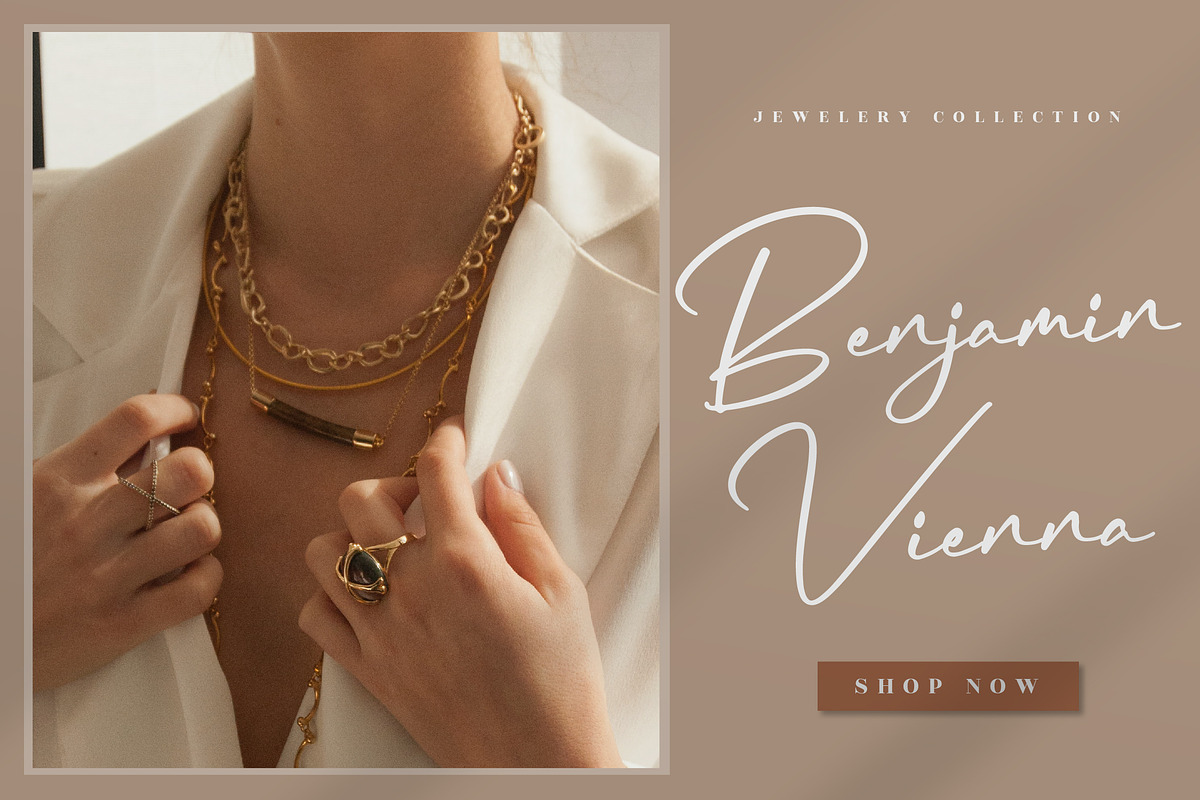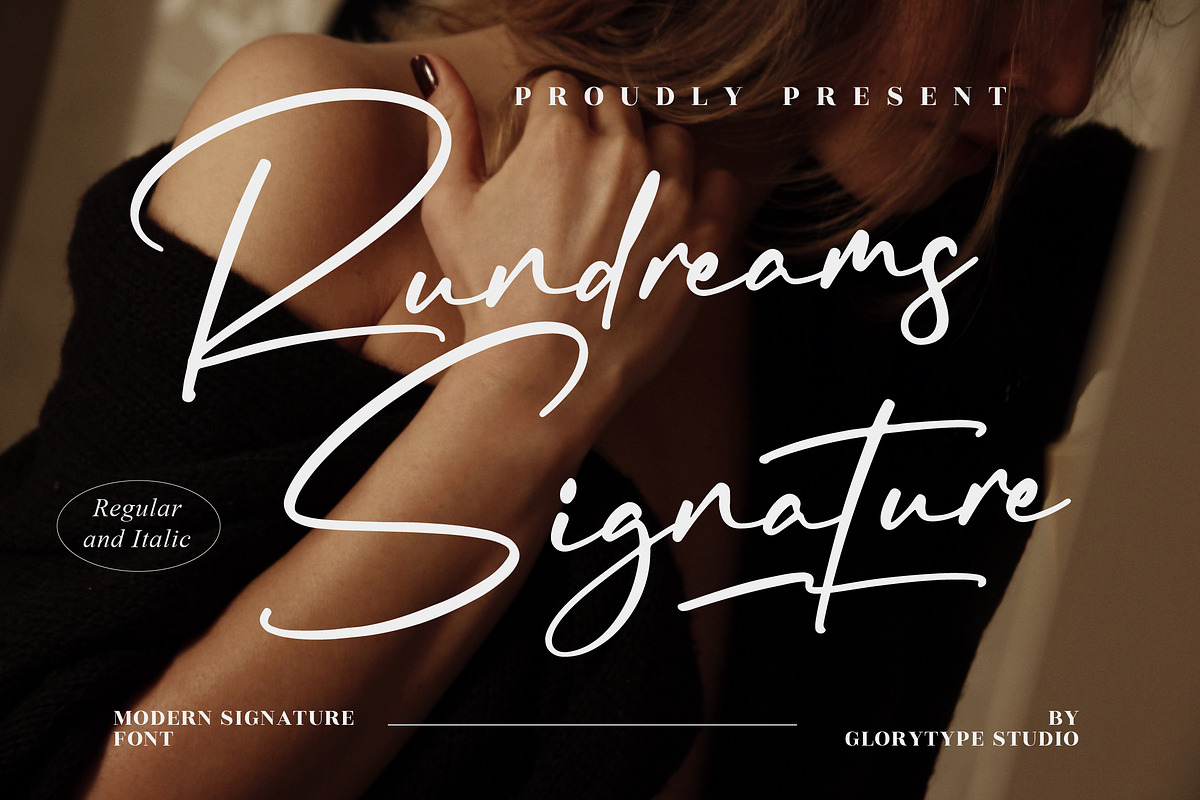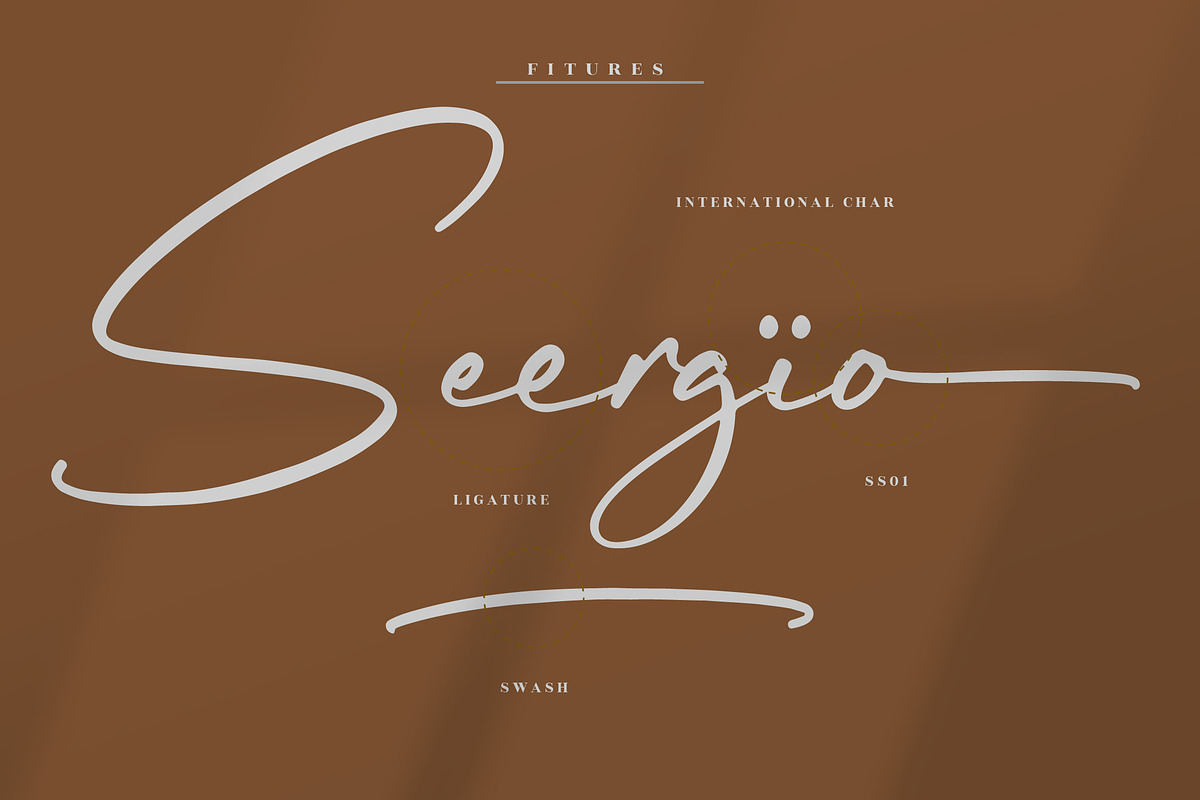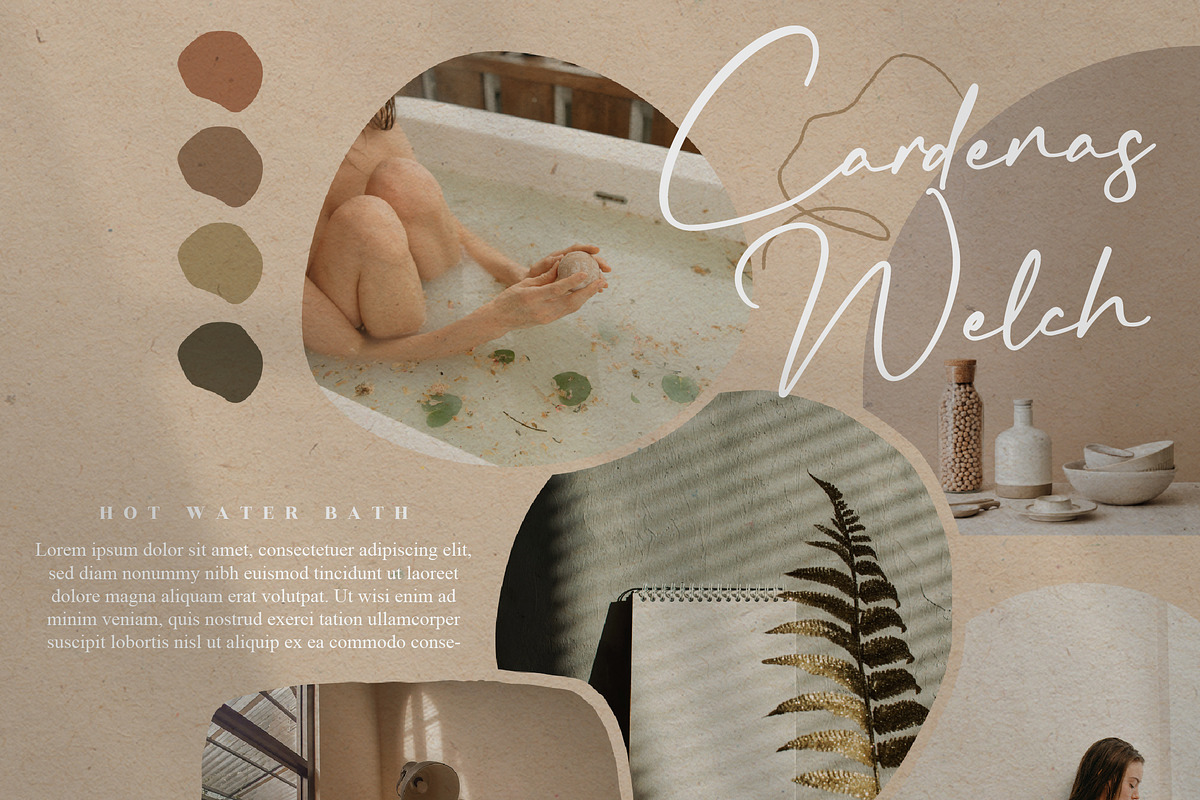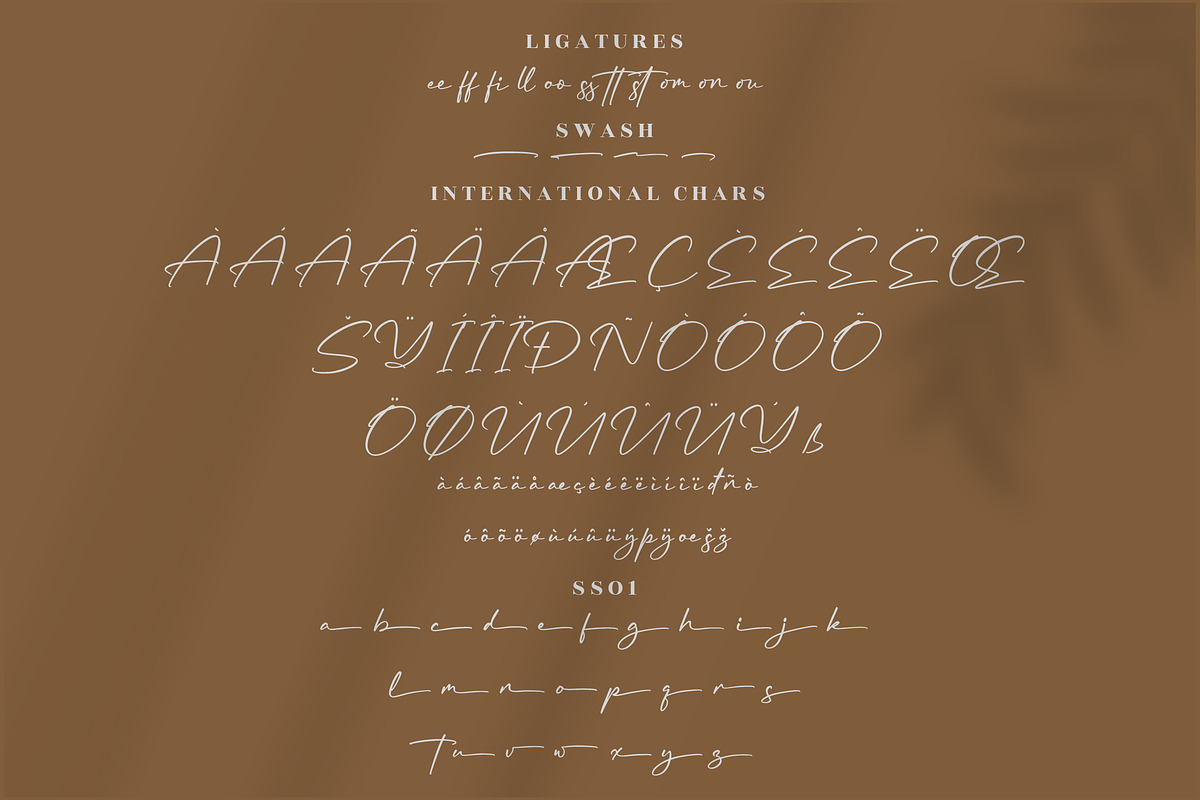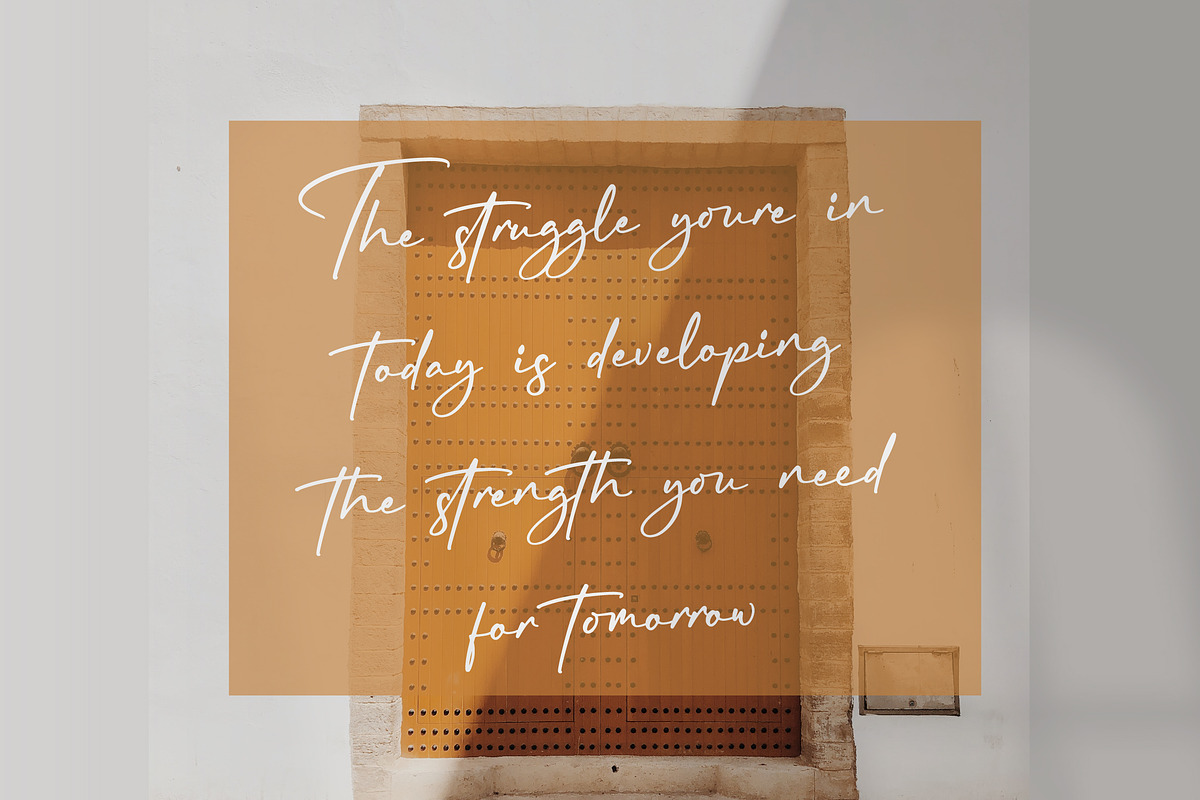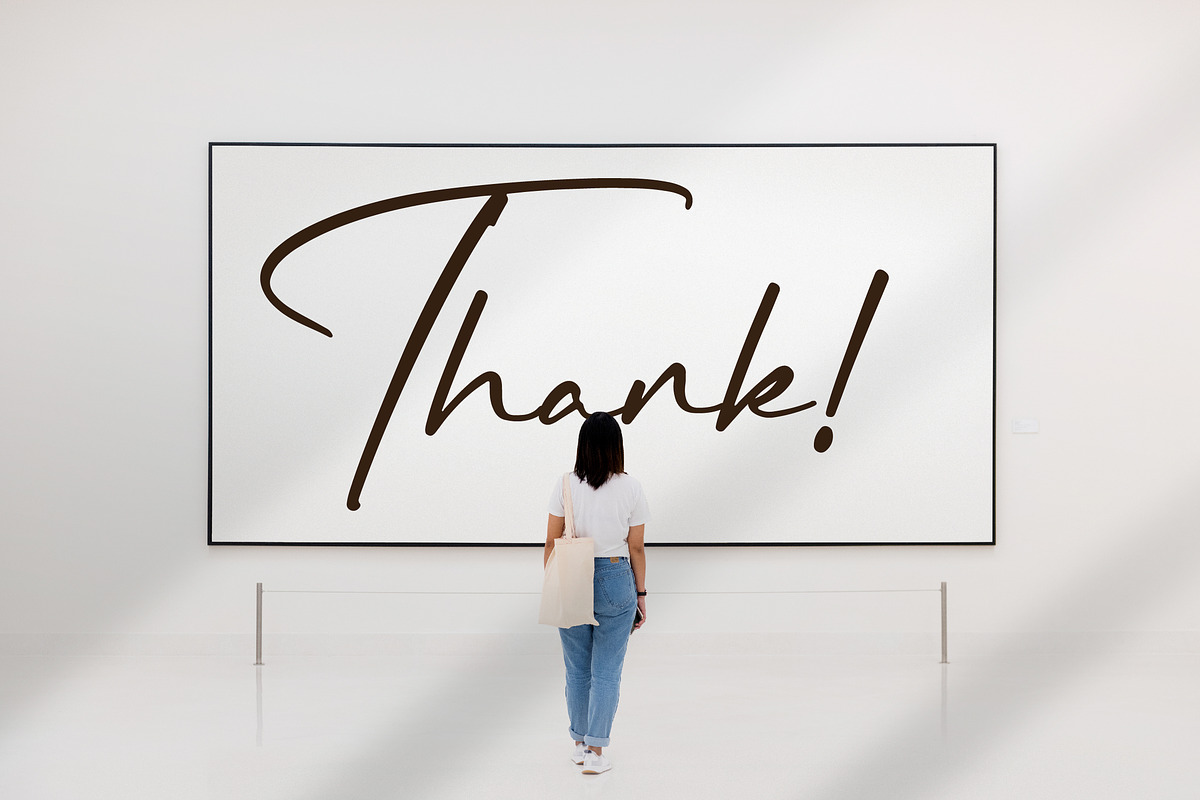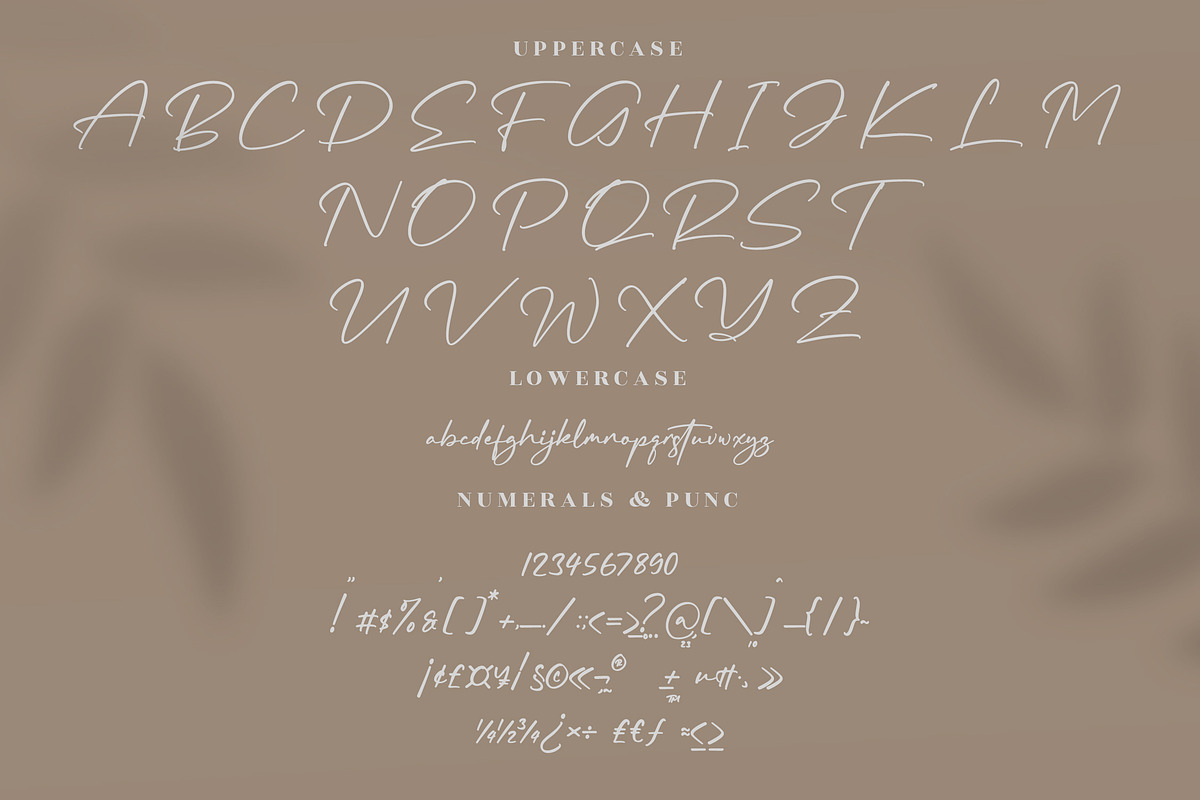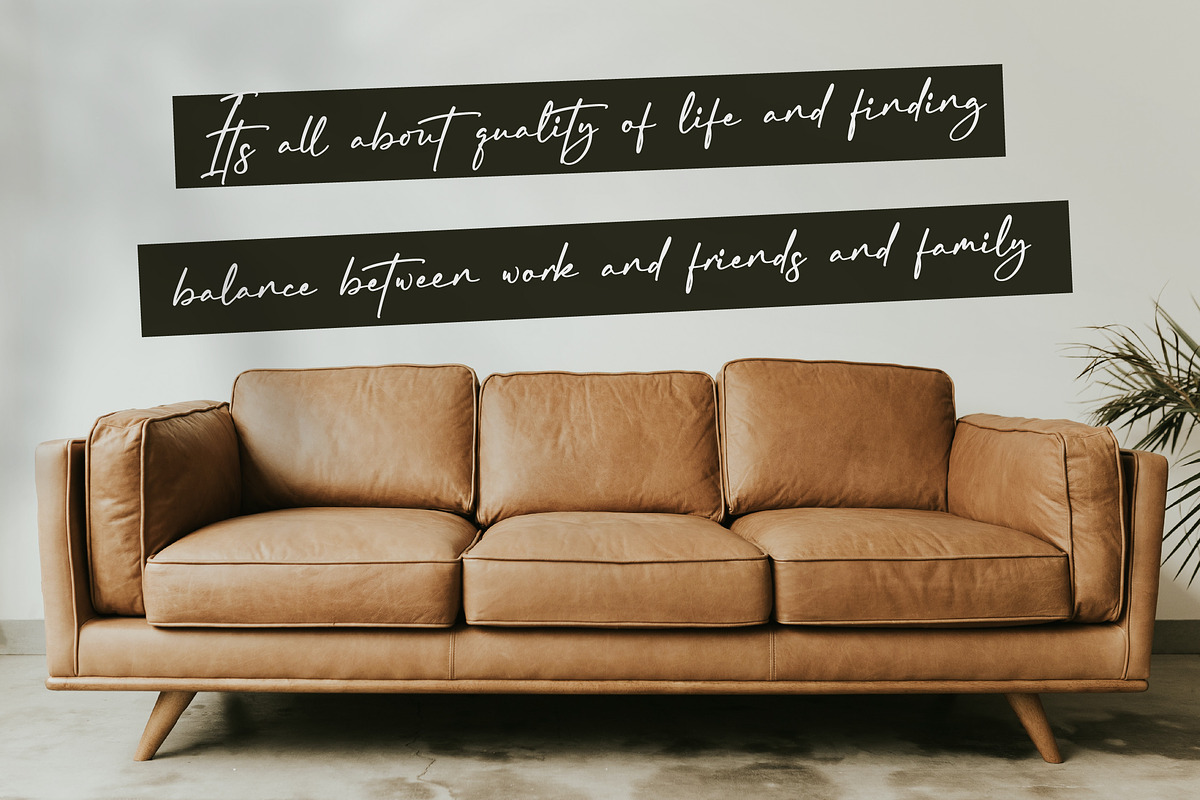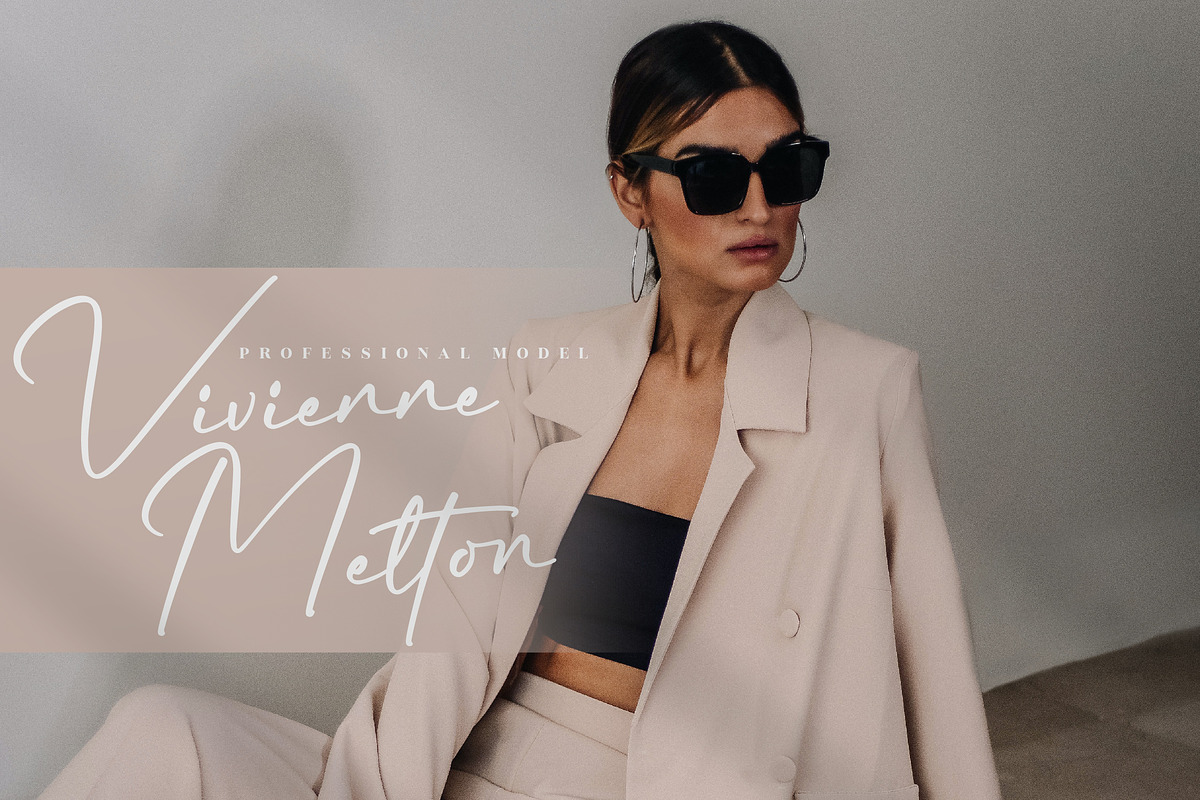
Rundreams Signature Modern Signature
Rundreams Signature – Modern Signature Font, from Glorytype Studio, is a beautiful script font, suitable for any projects such as: logos, branding projects, homeware designs, product packaging, mugs, quotes, posters, shopping bags, t-shirts, book covers, name card, invitation cards, greeting cards, label, photography, watermark, special events, and all your other lovely projects that need a beautiful script taste.